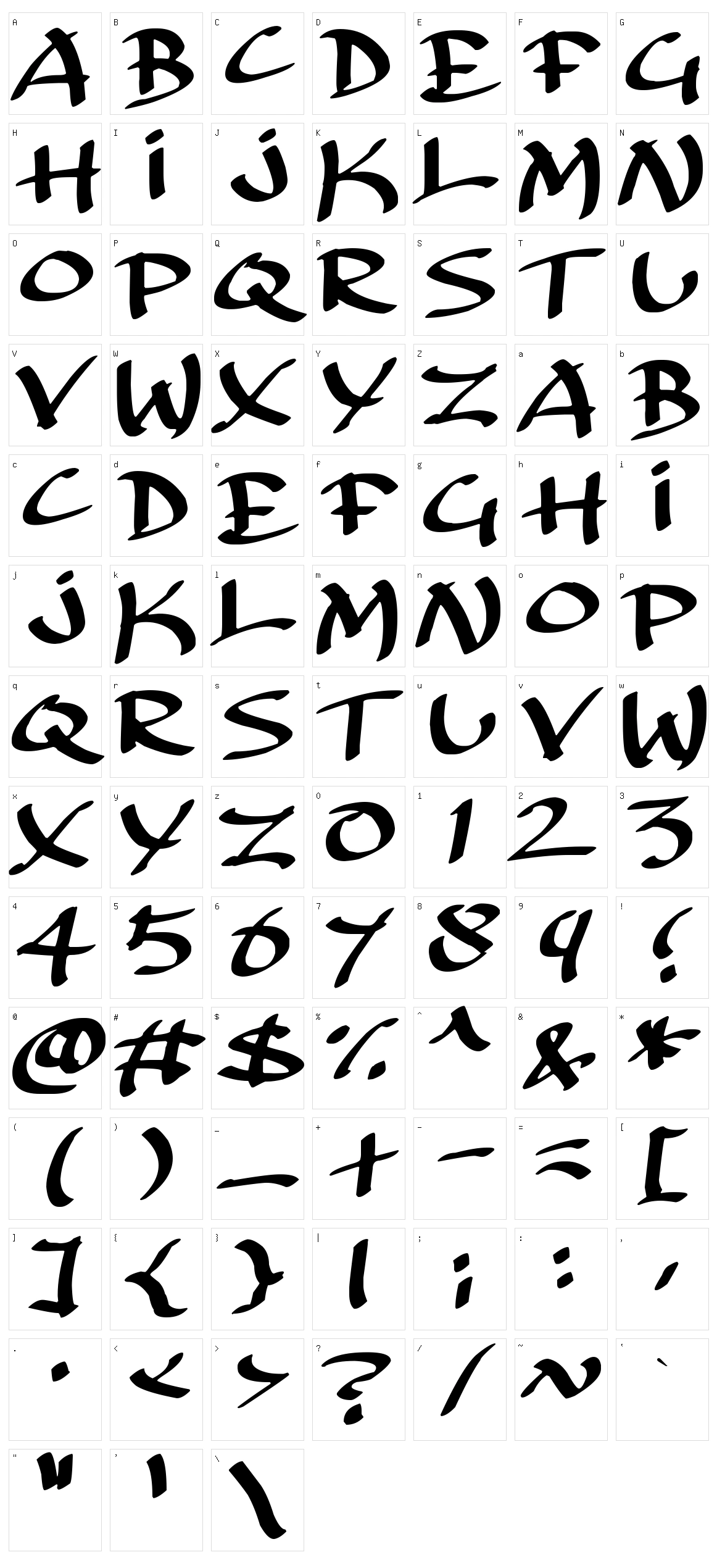
The free font Archaic Asian Inks is carefully designed by Hawtpixel, showcasing a thoughtful balance of creativity and usability and falls under the Script font style. When you download the ZIP file, it contains only 101.6 KB of font files, making it lightweight and quick to download. Please review the license details below to understand permitted usage and distribution rights. If license information is not available, we recommend using this font for personal projects only or contacting the author directly for commercial usage permissions.